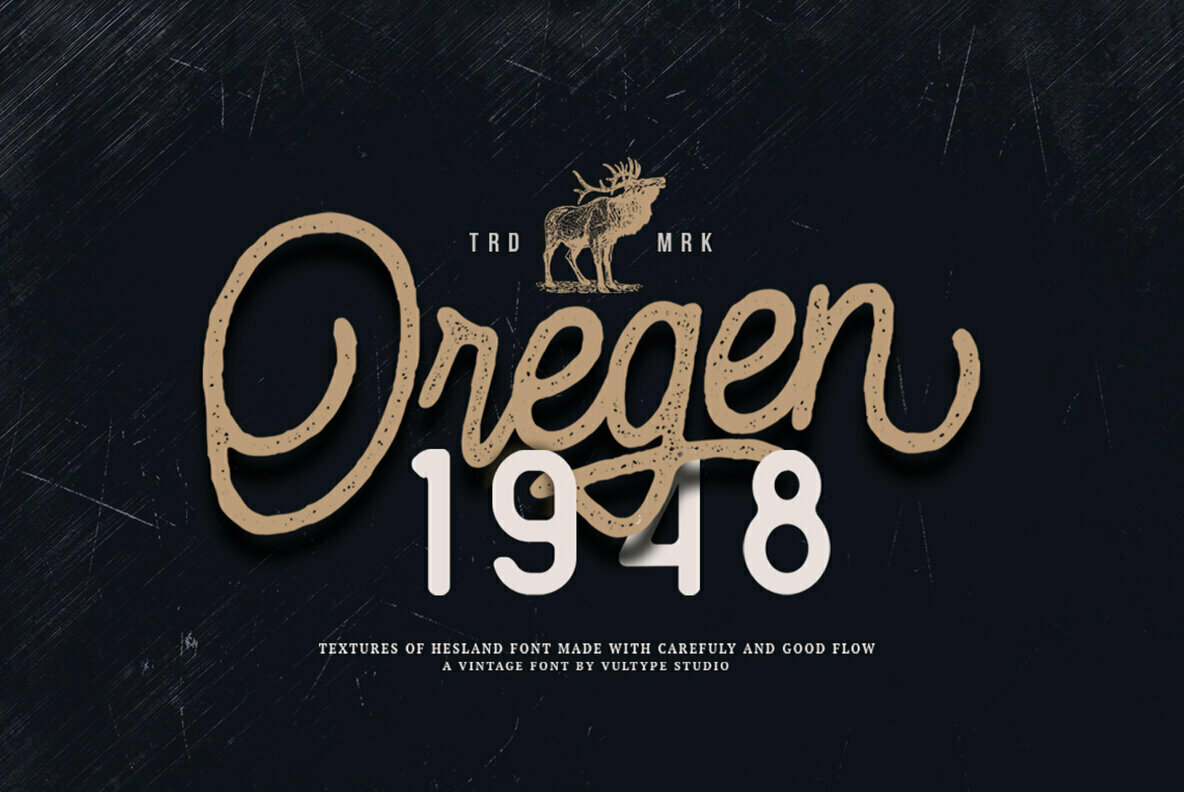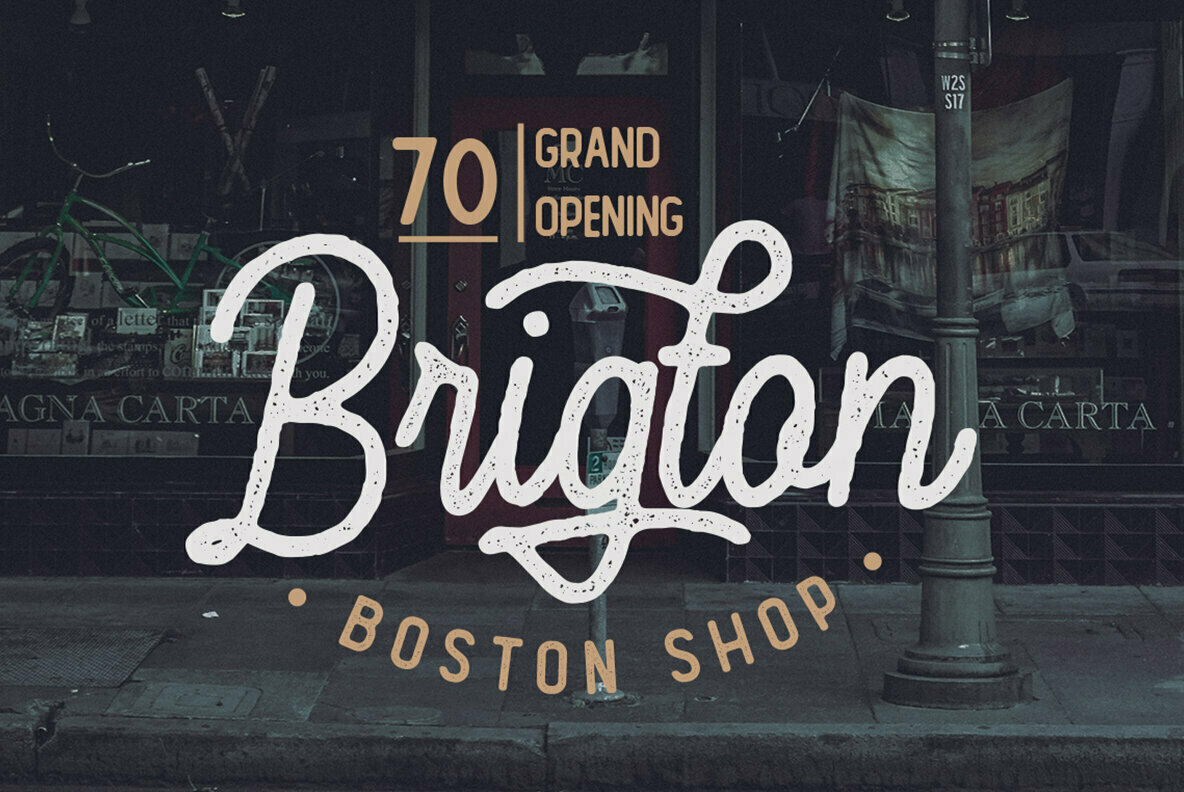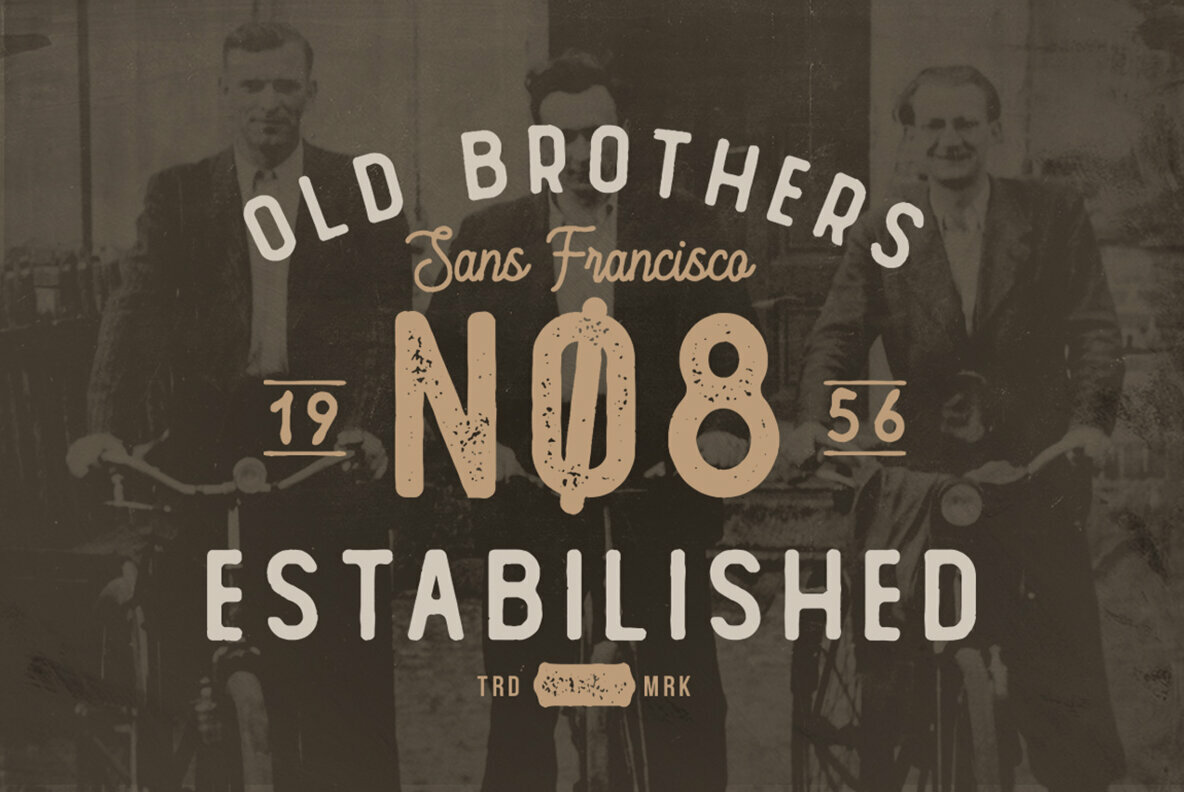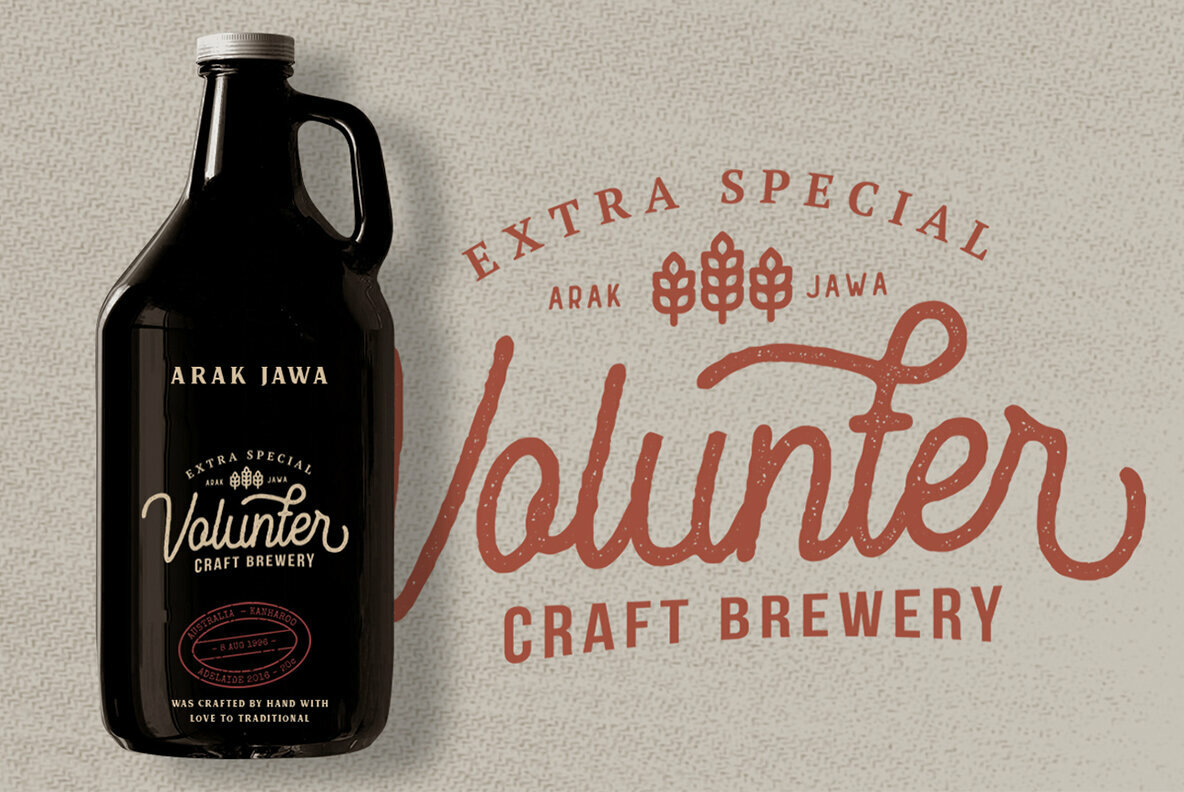
Hesland Vintage Script Font: Two Styles of American Nostalgia
Hesland captures the charm of vintage American script, offering two distinctive styles for creative professionals. With its Clean and Stamped options, this font offers flexibility, allowing designers to evoke a sense of nostalgia or elegance in any project.
Typographic Features
• Stylistic Alternates – Offers variations for personalized design.
• Ligatures – Enhances fluidity and coherence between letters.
• Oldstyle Numerals – Adds a classic touch to numeric designs.
• Multiple Language Support – Ensures versatility across international projects.